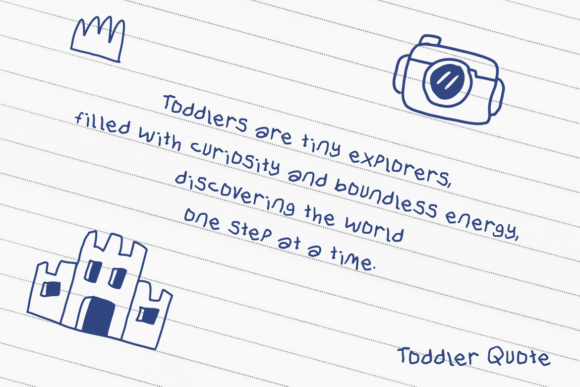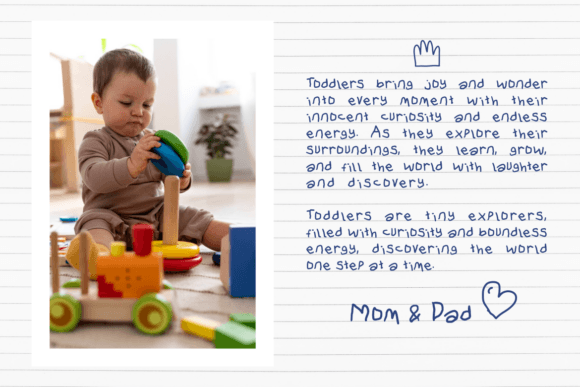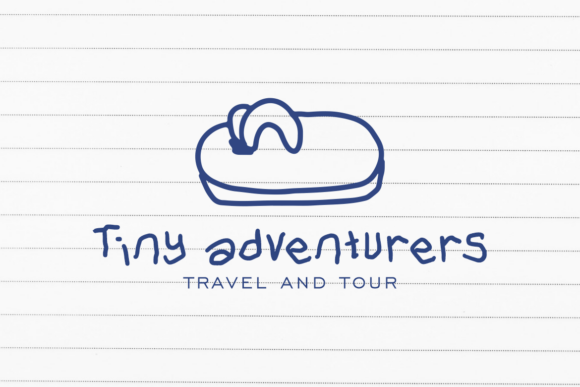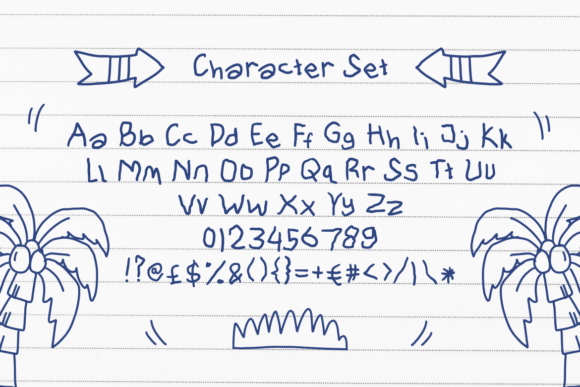
Introducing Doodline – Children Handwriting Style Font
Are you tired of using the same old fonts in your designs? Do you want to add a touch of childhood creativity and imagination to your projects? Look no further than Doodline, a delightful typeface that captures the essence of childhood wonder. This playful font features whimsical doodles and bold, hand-drawn lines that mimic the joyful scribbles of a child’s artwork, making it perfect for designers and crafters looking to add a dash of fun to their creations.
The Inspiration Behind Doodline
Doodline is more than just a font – it’s a journey back to the colorful days of childhood. The font’s design is inspired by the carefree doodles and scribbles that children create when they’re left to their imagination. Each character in Doodline is designed with care to convey warmth and playfulness, making it an ideal choice for projects that require a personal touch. Whether you’re designing enchanting invitation cards for a kid’s birthday party or creating eye-catching titles for children’s books, Doodline adds that extra sprinkle of fun that will make your project stand out.
One of the best things about Doodline is its versatility. This font is not limited to just one type of project. Its robust selection makes it ideal for a wide range of applications, including:
- Logos and branding materials: Add a touch of whimsy to your brand identity with Doodline’s playful characters.
- Crafting projects: Use Doodline to create unique and eye-catching titles for your handmade crafts, such as jewelry, candles, or soap.
- Packaging designs: Make your product stand out on store shelves with Doodline’s bold and colorful font.
- Posters and flyers: Create engaging and attention-grabbing posters and flyers with Doodline’s quirky characters.
- Movie titles: Add a touch of childhood magic to your movie titles with Doodline’s whimsical font.
Readability and Charm
While Doodline is a playful font, it’s also easy to read and understand. The font’s bold lines and clear character design ensure that your message is conveyed clearly, making it perfect for use in a variety of contexts. Whether you’re designing for print or digital media, Doodline’s charm and readability make it an excellent choice.
Doodline is a font that’s sure to delight designers and crafters alike. Its unique and playful design makes it perfect for use in a wide range of creative projects. Whether you’re a professional designer or a crafter looking to add a personal touch to your handmade creations, Doodline is an excellent choice.
Tips for Using Doodline
Here are a few tips for getting the most out of Doodline:
- Use Doodline in combination with other fonts to create a unique and eye-catching design.
- Don’t be afraid to get creative and try new things – Doodline is a font that’s meant to be played with!
In conclusion, Doodline is a font that’s sure to bring a touch of childhood creativity and imagination to your designs. Its playful and whimsical design makes it perfect for a wide range of creative projects, from logos and branding materials to crafting projects and packaging designs. With its versatility, readability, and charm, Doodline is an excellent choice for designers and crafters looking to add a dash of fun to their creations.